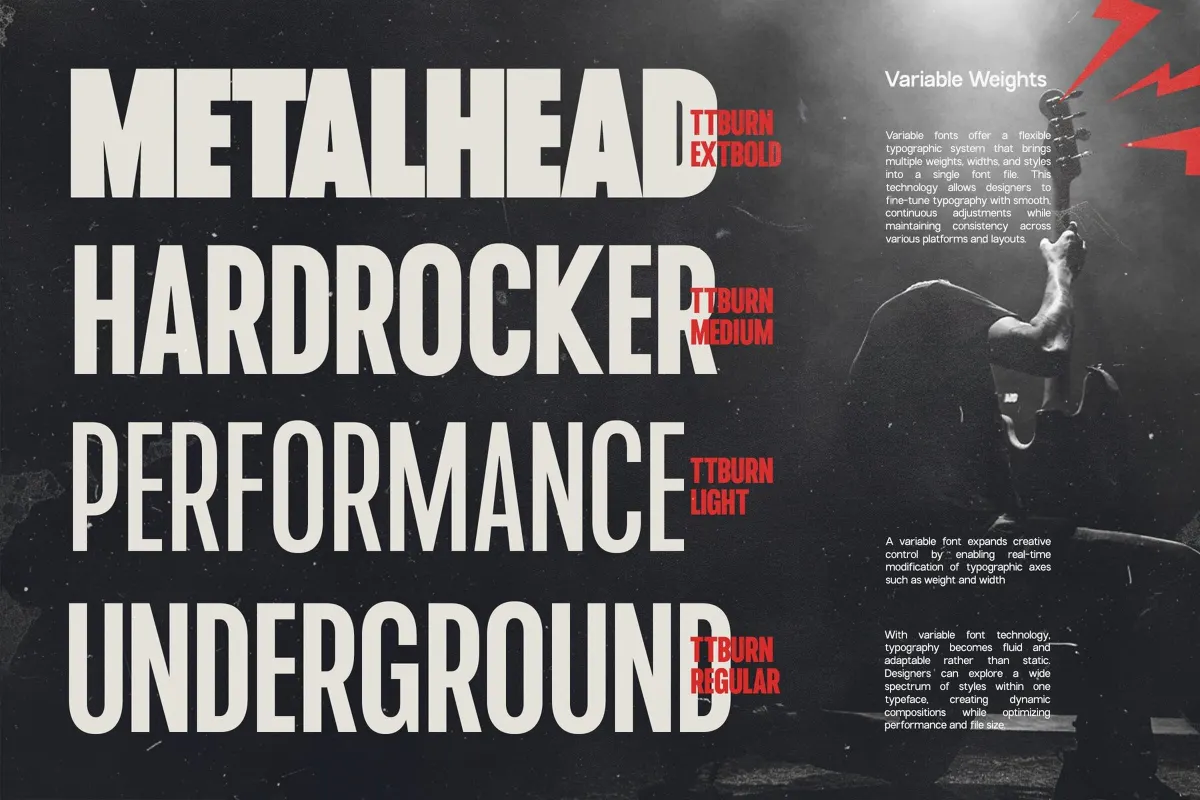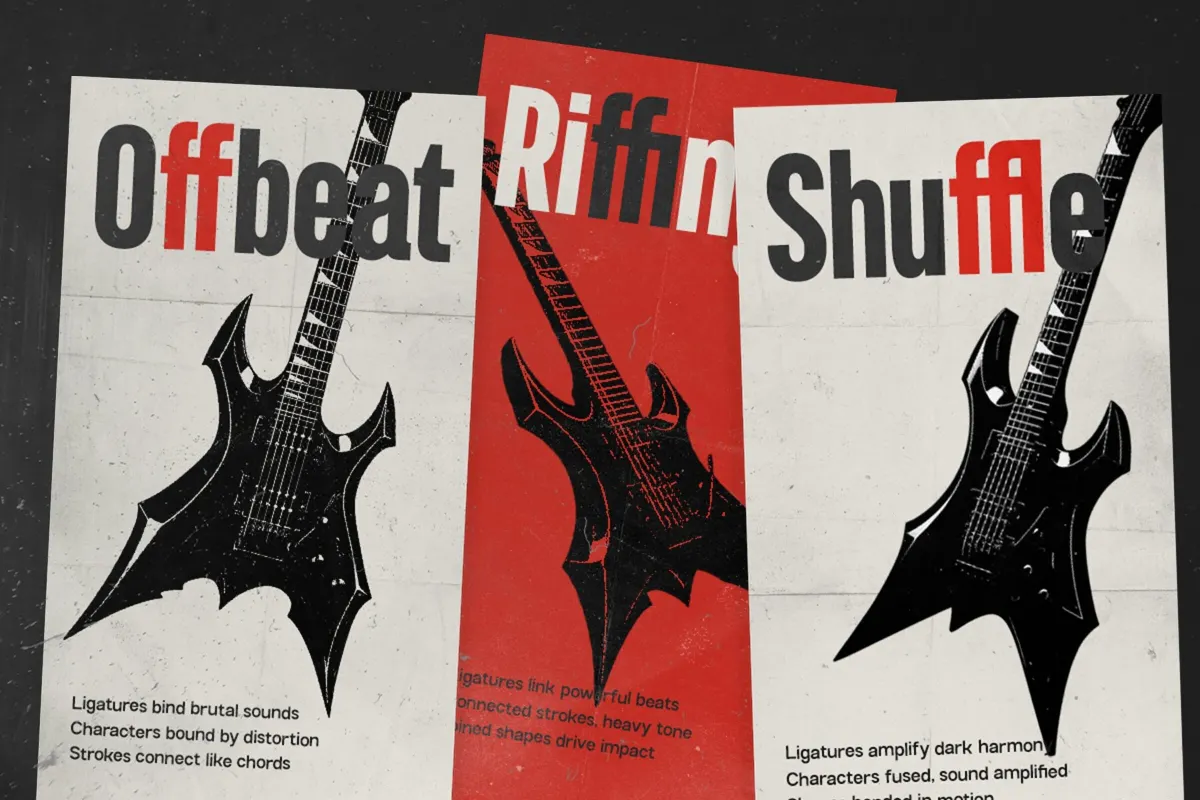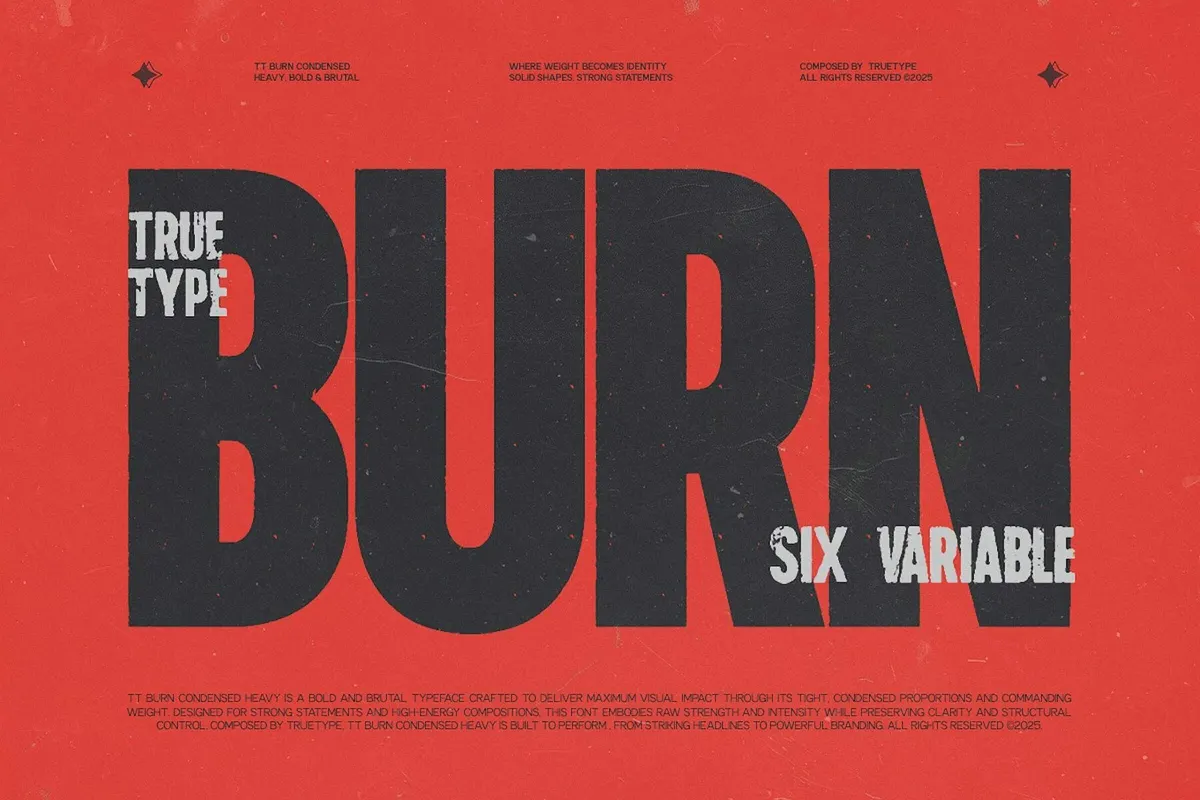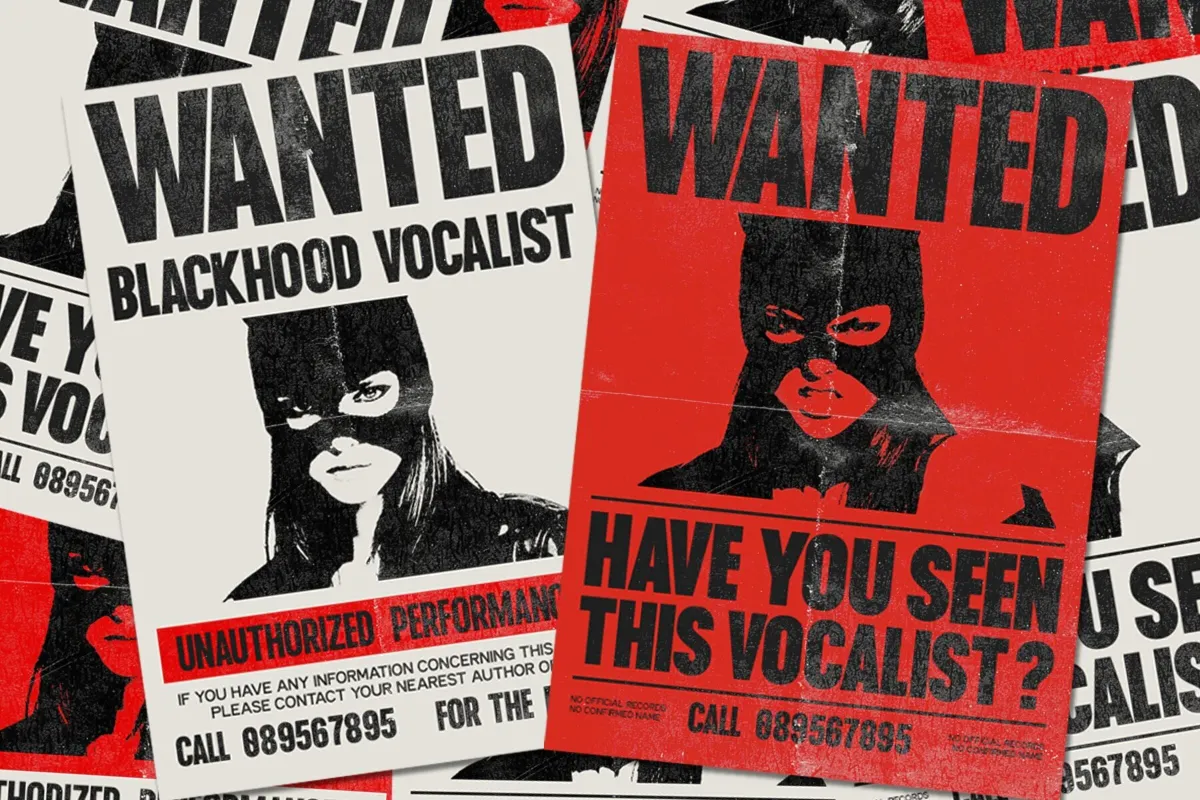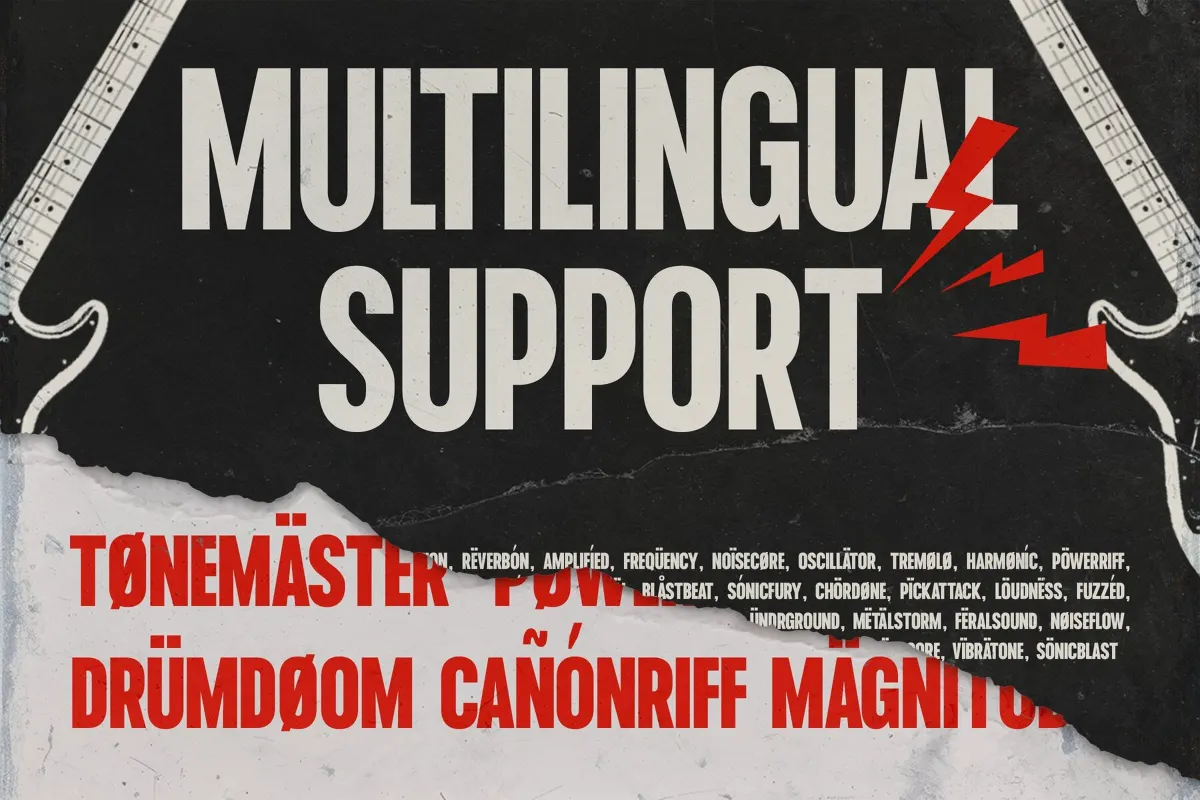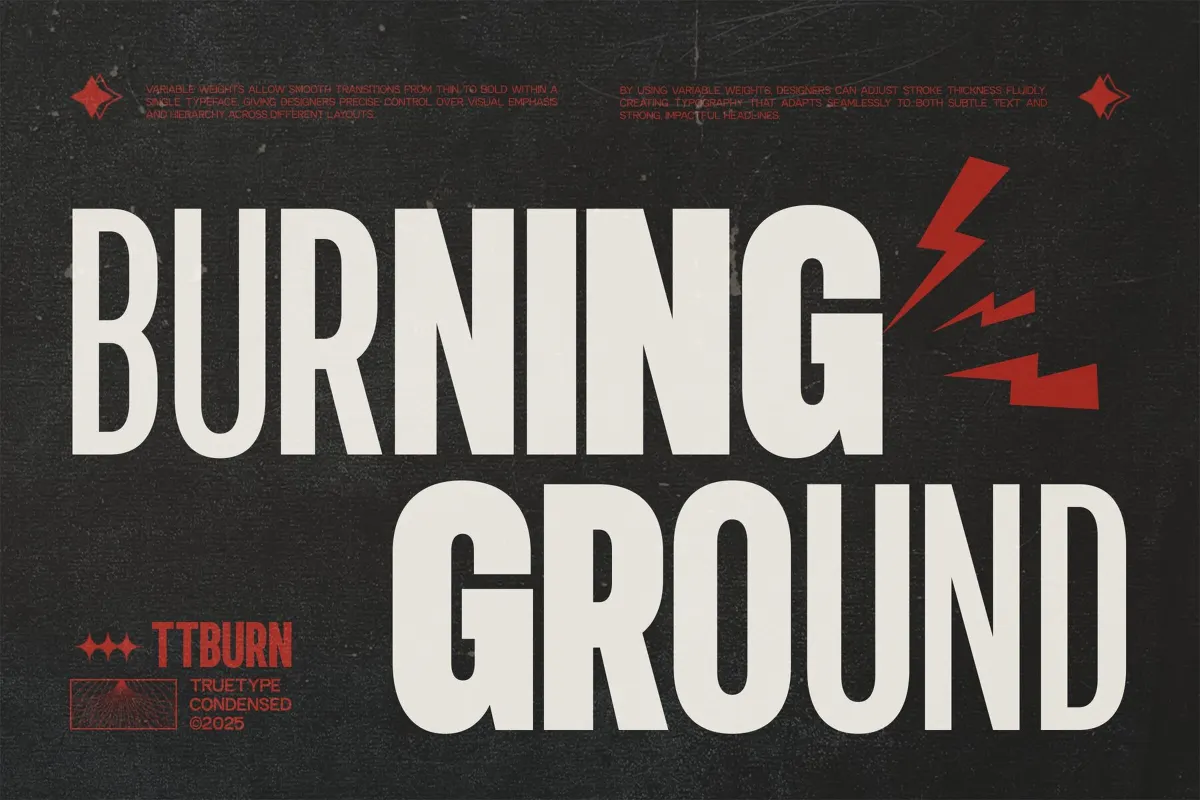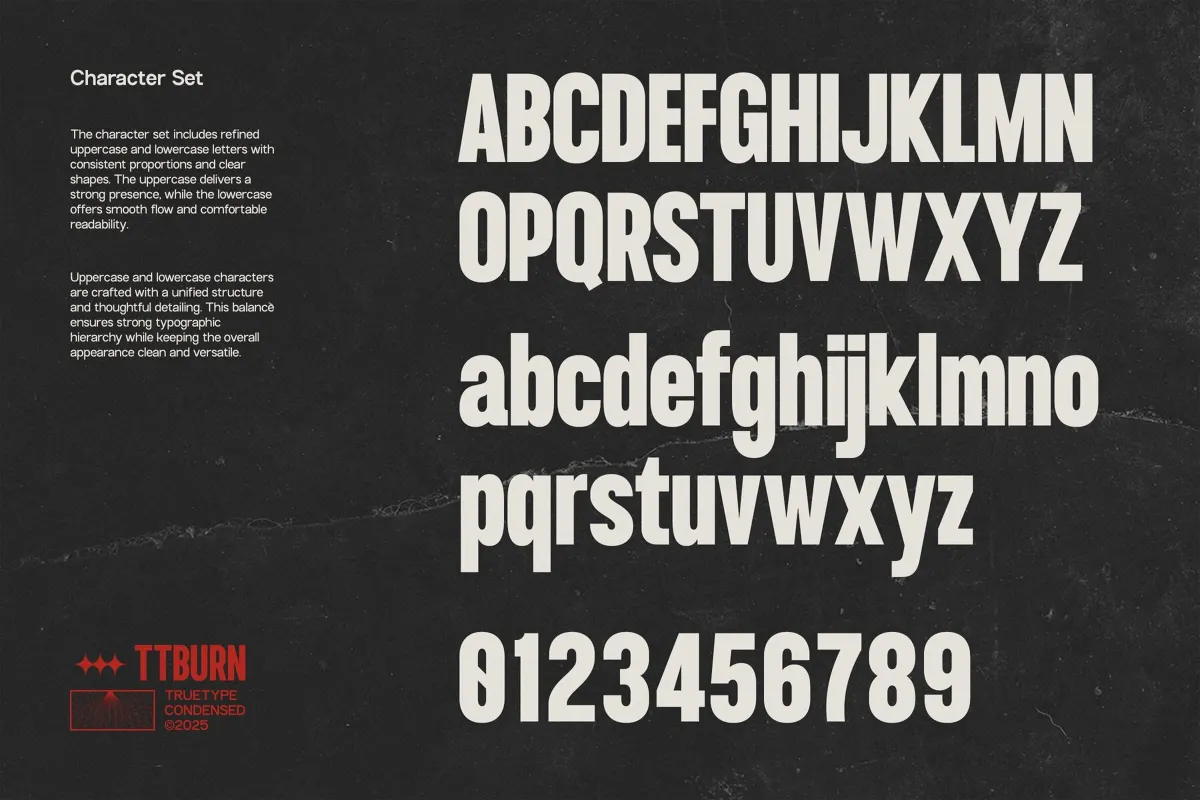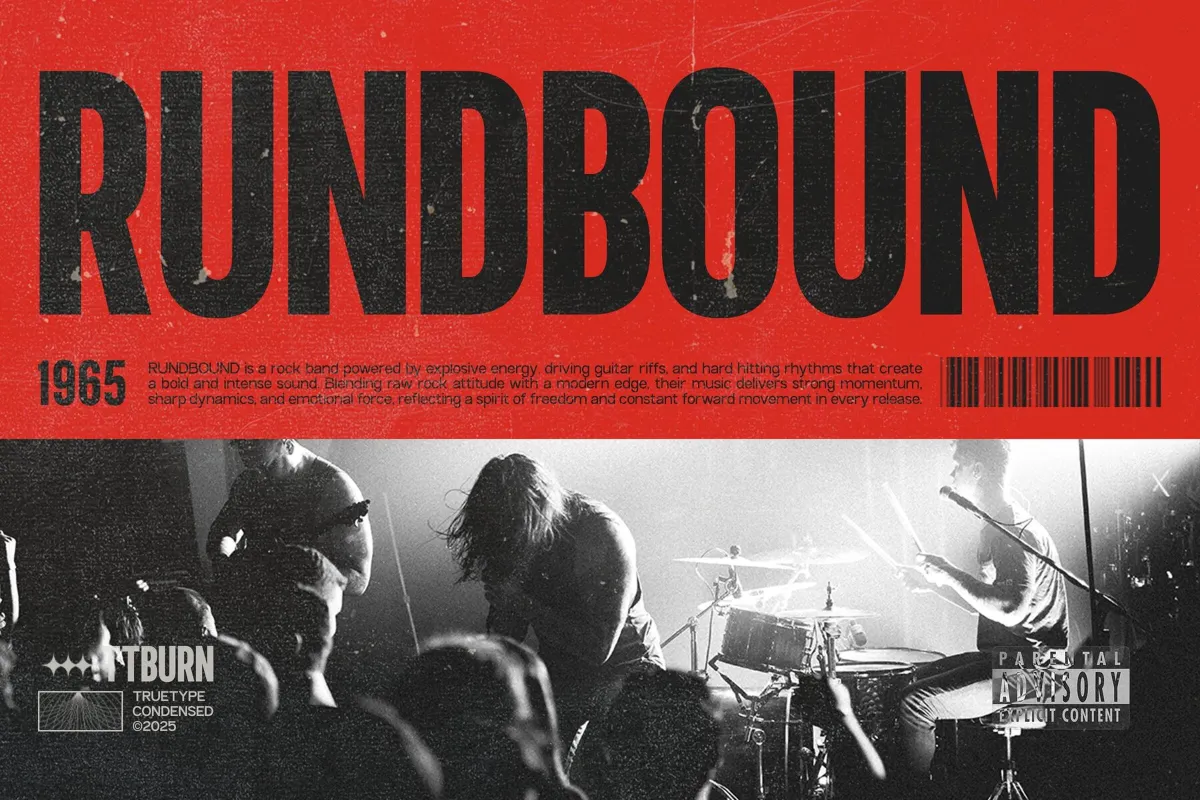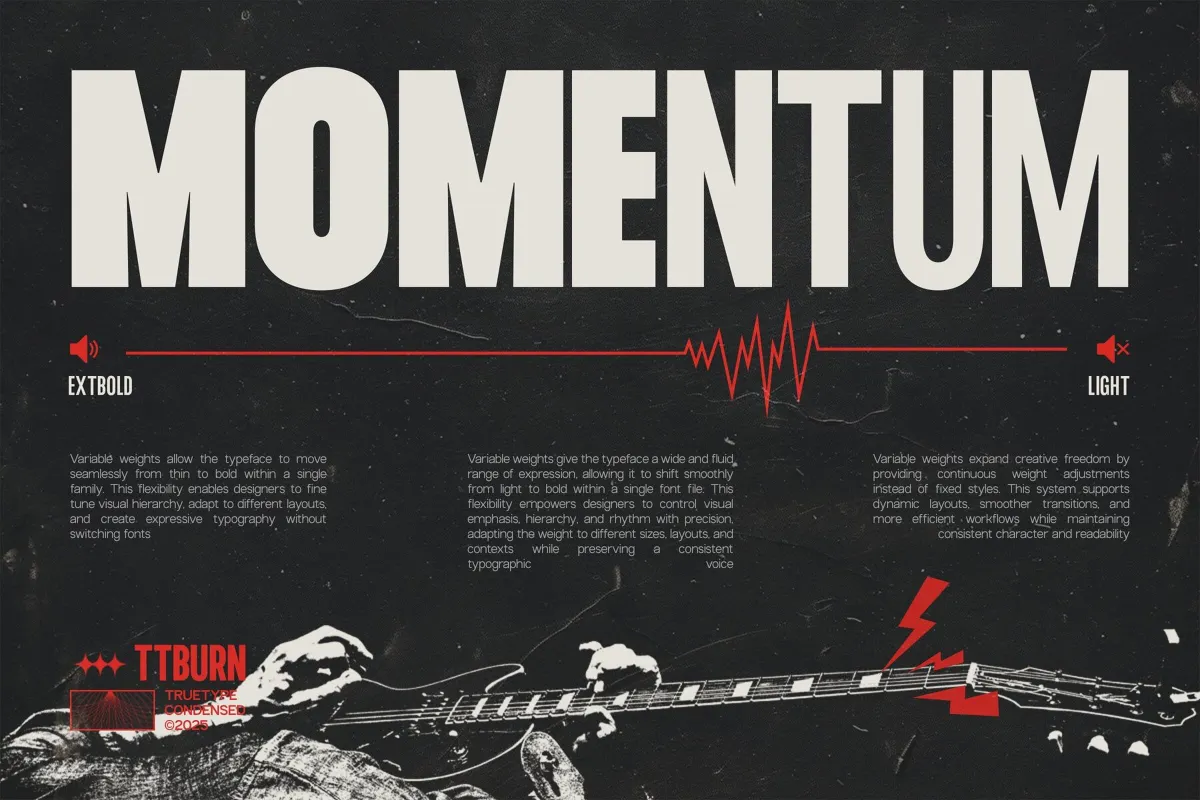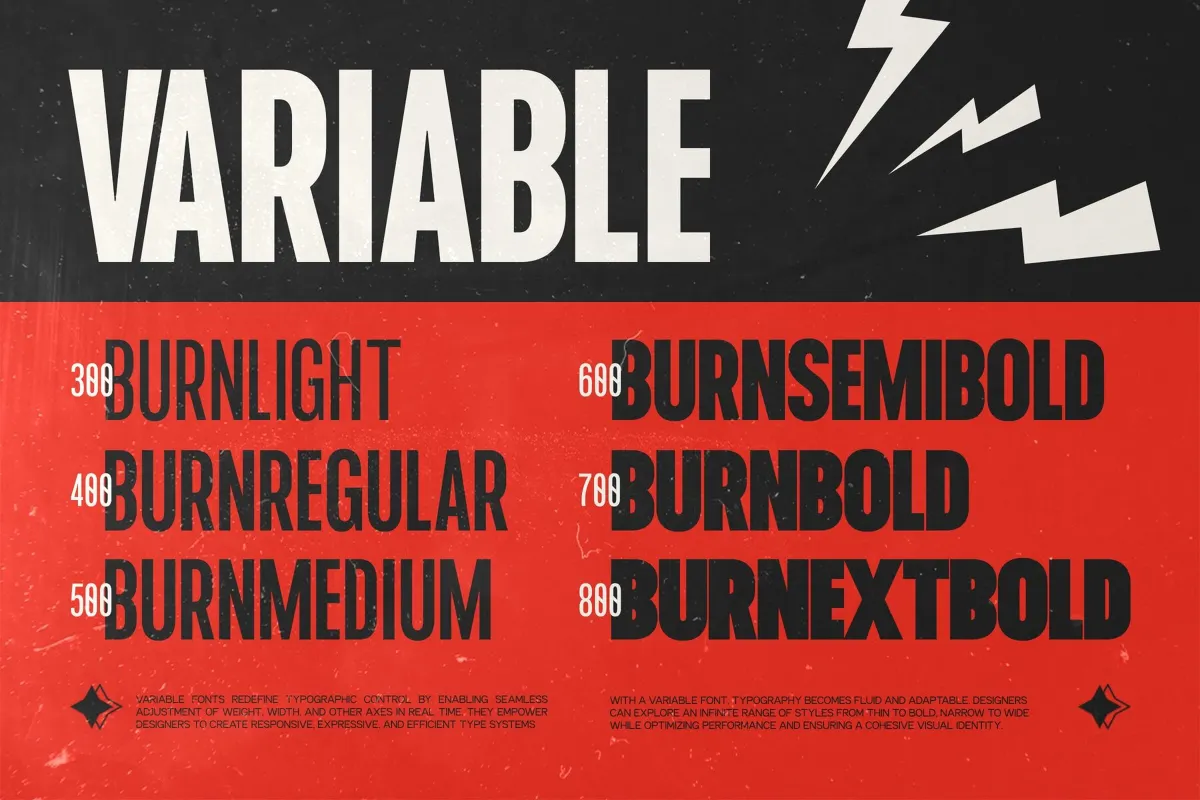
TRT Burn - Condensed Sans Font
TRT Burn builds on tall, narrow proportions with a confident, even stroke weight, made for headlines that need to stand up straight in tight spaces. Six weights cover the full range from a light Light through a dense Extra Bold, and a variable font file carries that same range in one file.
Ligatures and fraction figures round out the technical side, and a stylistic alternate softens the a and y for headlines that want a touch less rigidity. Use it for branding, editorial headlines, advertising, posters, packaging, and web or UI design.
- 6 styles: Light, Regular, Medium, SemiBold, Bold, ExtraBold;
- 1 variable font covering the full weight range;
- Uppercase & lowercase;
- Numerals, punctuation & symbols;
- Ligatures, stylistic alternates, fractions & superscript figures;